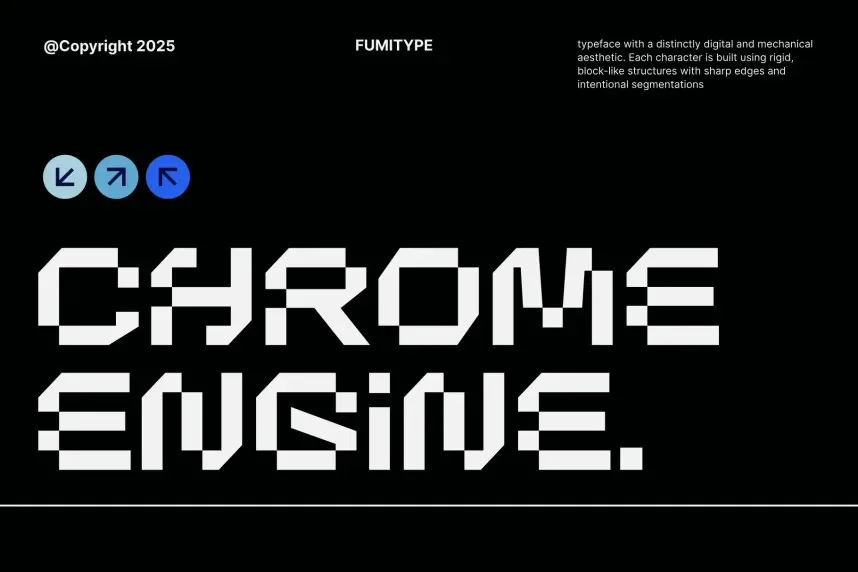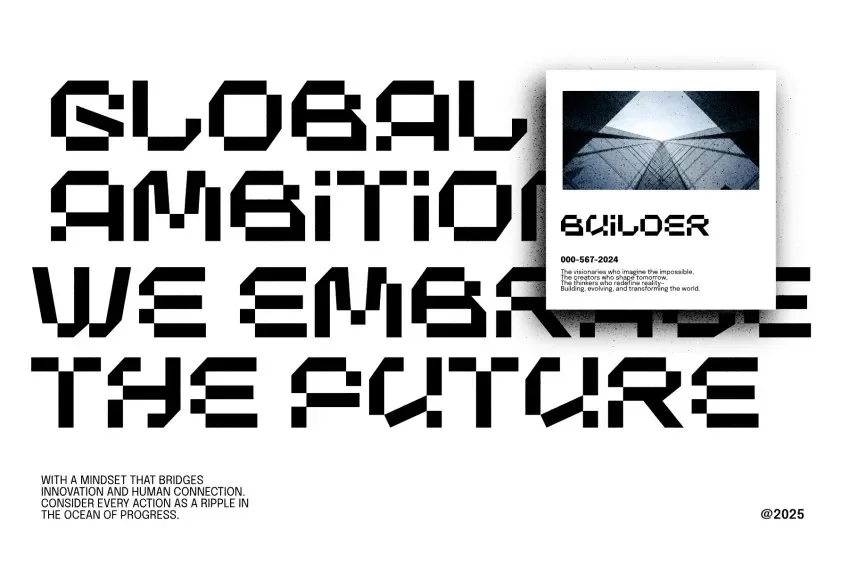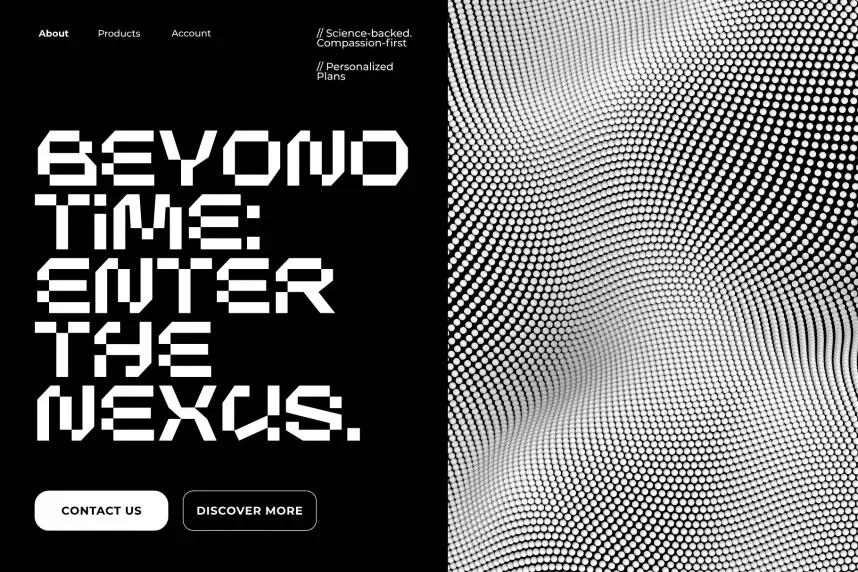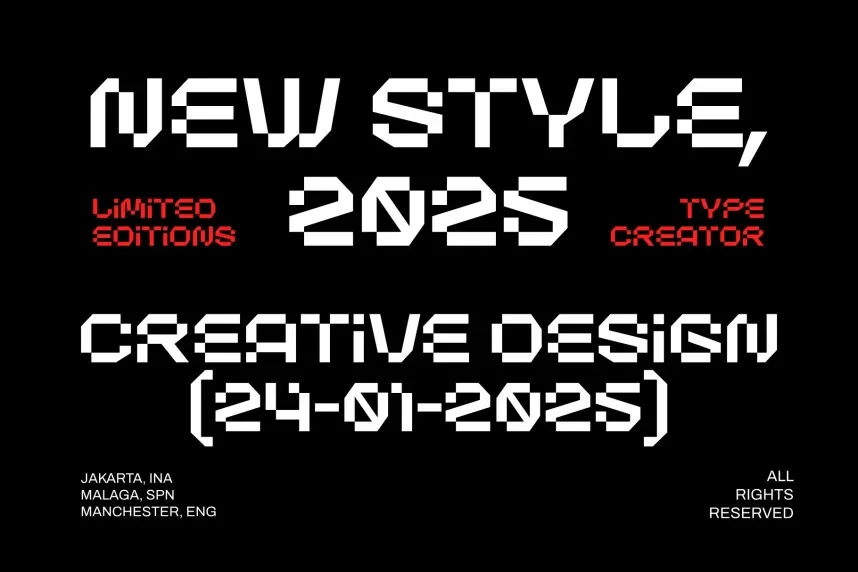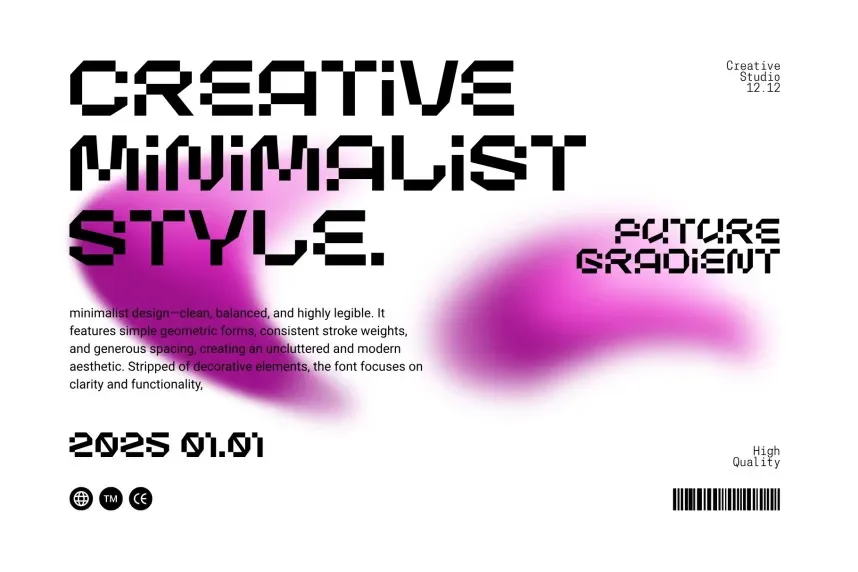
Chrome Engine Font supports projects that require mechanical or futuristic typography. Standard fonts often lack the sharp details needed for tech-focused visuals.
Chrome Engine is a display font with angular shapes, sharp corners, and consistent stroke widths. The letterforms reflect industrial and sci-fi influences while staying readable in short text.